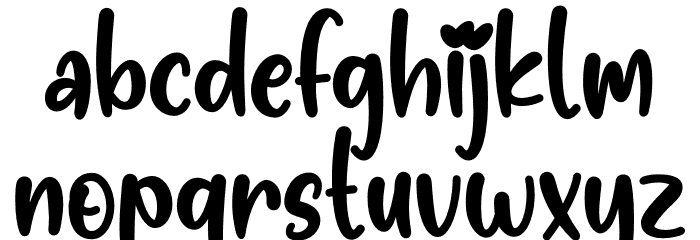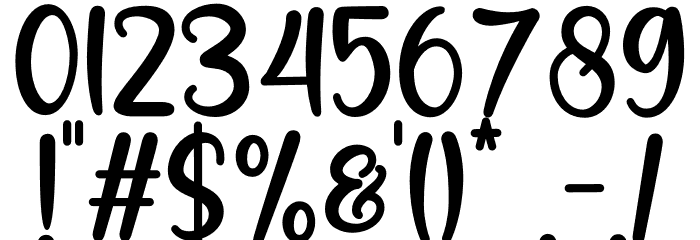
Kids Zona Font
This playful and energetic font features bold, rounded characters with a hand-drawn appearance. The uppercase letters are tall and slightly narrow, while the lowercase letters maintain a consistent height, adding to the font's whimsical charm. The numbers are rounded and match the playful style of the letters. Special characters are creatively designed, adding to the font's overall fun and lively feel. The strokes are thick and consistent, providing a strong visual impact, making it ideal for projects that require a youthful and vibrant touch.
A playful, bold, hand-drawn font with rounded characters.
- Font: Kids Zona
- Proposed Projects: Perfect for children's books, playful branding, party invitations, and educational materials.
- Overall Style: Playful